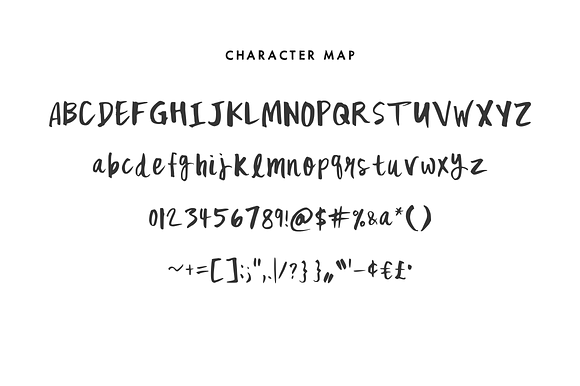
Fickle — A Handwritten Semi-Script
MIX FICKLE, is an unsure & unsteady handwritten semi-script. This typeface is perfect for creating a roughly scribbled look.
Includes the following characters:
0123456789!@$#%&()~+=[]:;",.|/?{}“”’-¢€£•